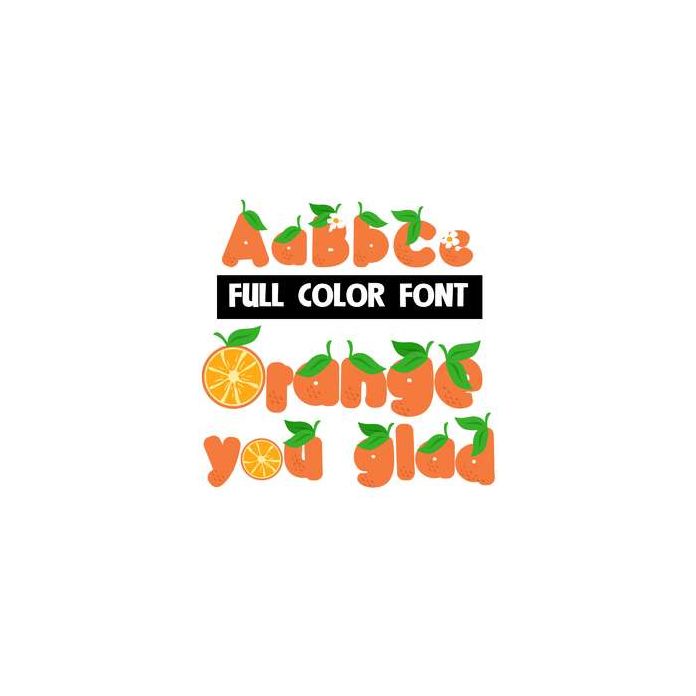
This full-color font looks like oranges with a sliced orange for the letter "O". This font works best for titles, displays, posters and more. Please note color fonts will show as black in non compatible programs. This font type is compatible with Silhouette Studio.